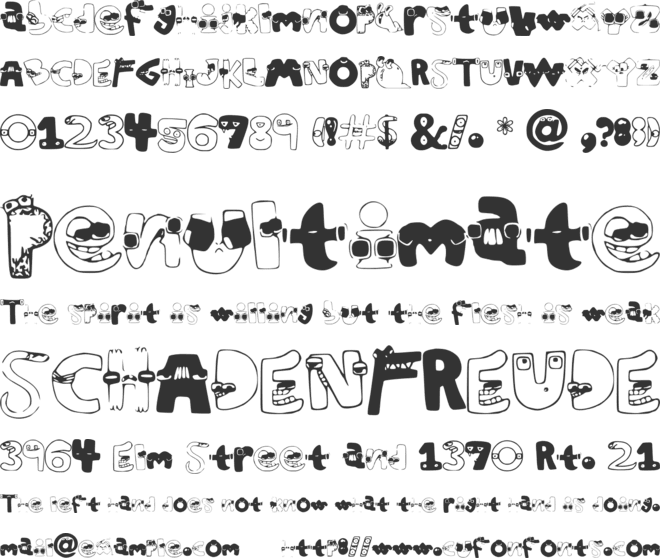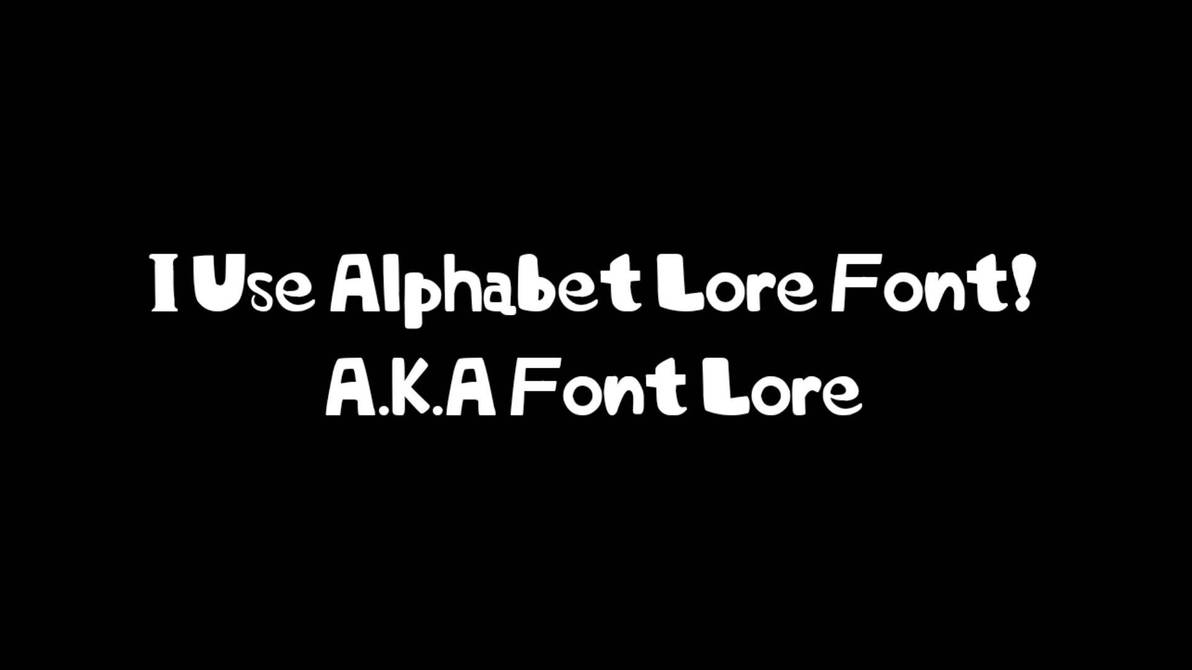
Alphabet Lore Font Scratch - Abtobус in font by sethmus;. A collection of remixes of a scratch project that creates a distorted and creepy font based on. Alphabet lore | type and glide! A scratch project that creates a custom font based on the alphabet lore font by natanczech. Font lore alphabet lore font with pounzh by antonycabrera;